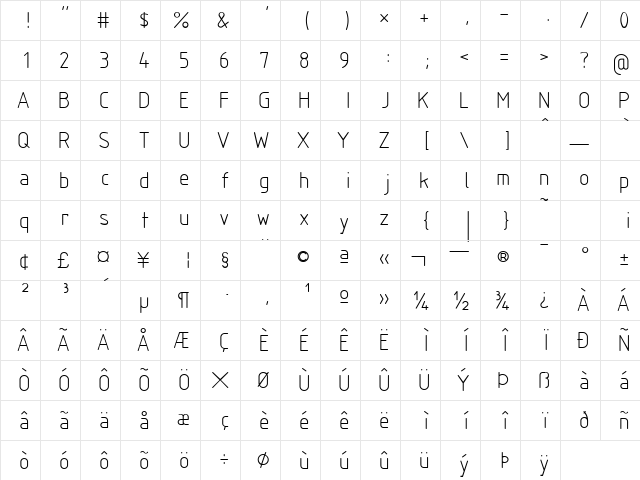
SWIsot2 Regular
Design Context for SWIsot2 Typeface
SWIsot2 takes a measured approach to typography — its balanced proportions and neutral character make it a reliable workhorse for both digital and print work.